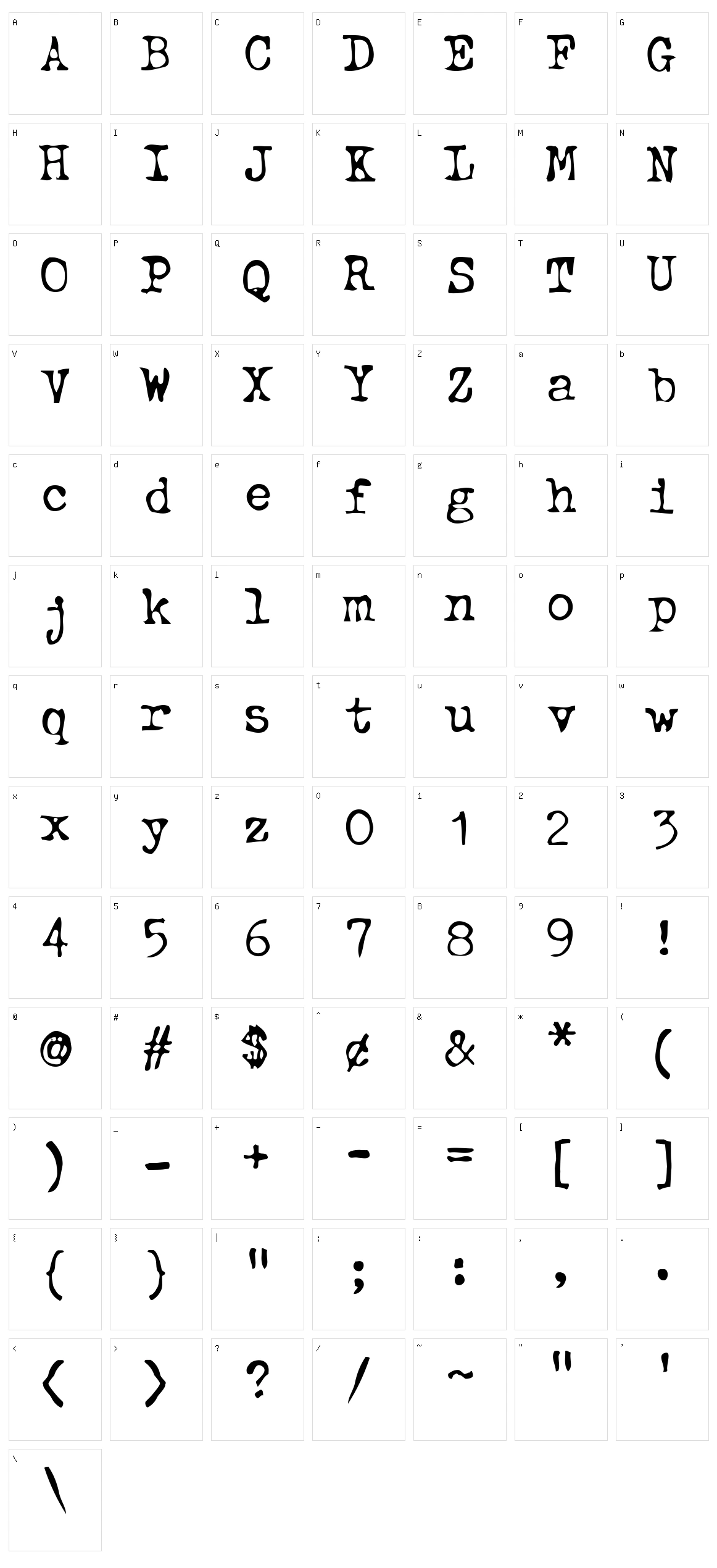
Font: btd Beezwax
Created: July 2006
I made this font to be used on a redesign of the Burts Bees website (2001). It's
gone through a few changes and started out being called btd Candlewax. After
Finishing the font I decided others might want to use ot so here it is.